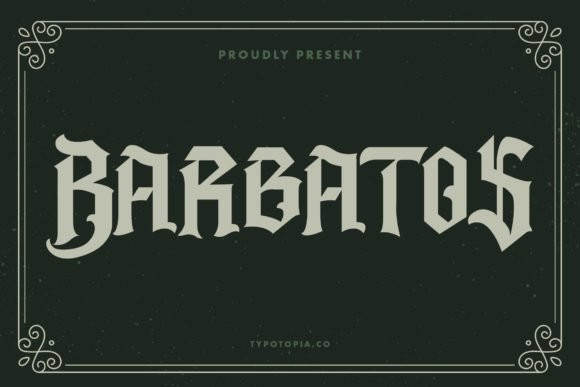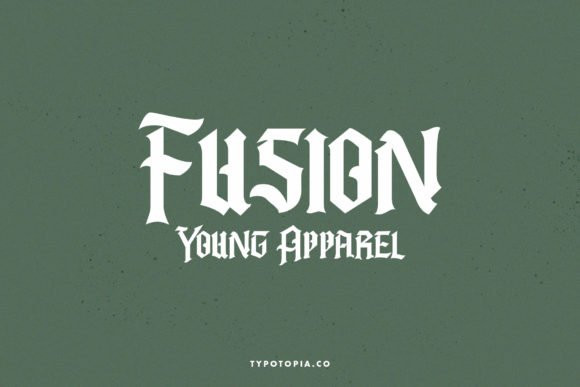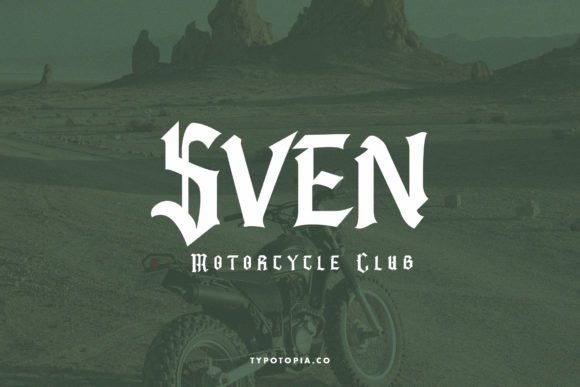
Barbatos Font
Barbatos is a bold and authentic blackletter font. It has strong letters and it will most certainly add a dramatic touch to your designs.